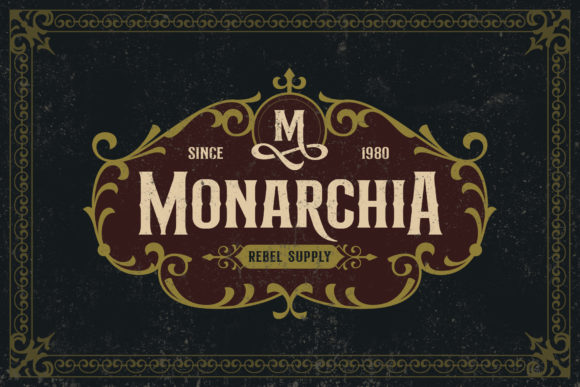
This experimental vintage font is called ‘Hermona’. The combination of class and a nostalgic, retro feel make this font a true standout. It’s inspired by old-school caps and labels, and will turn any design project into a historical masterpiece.